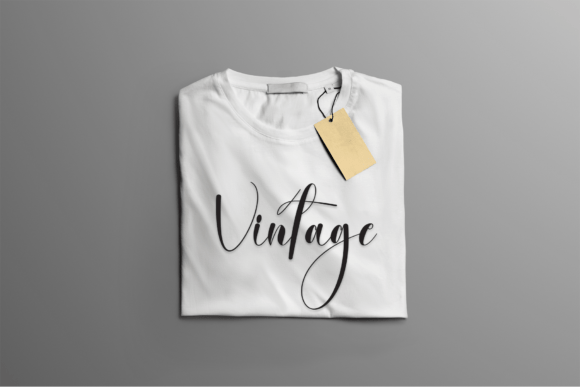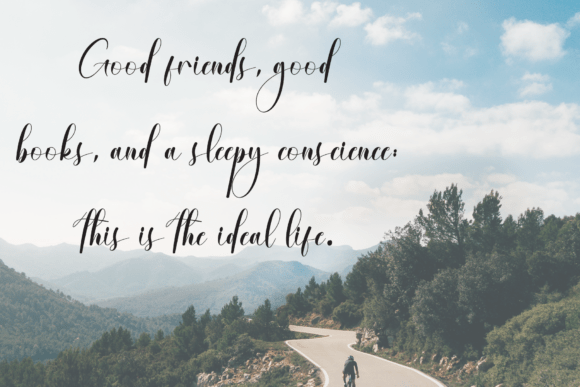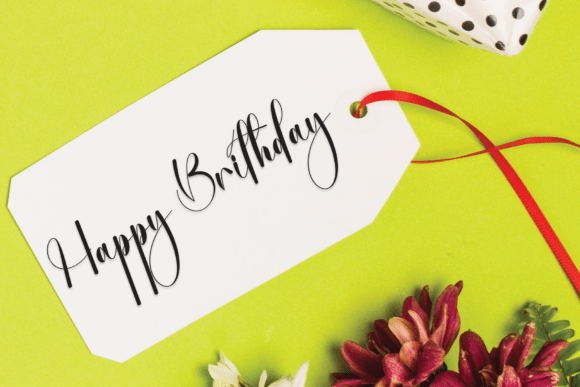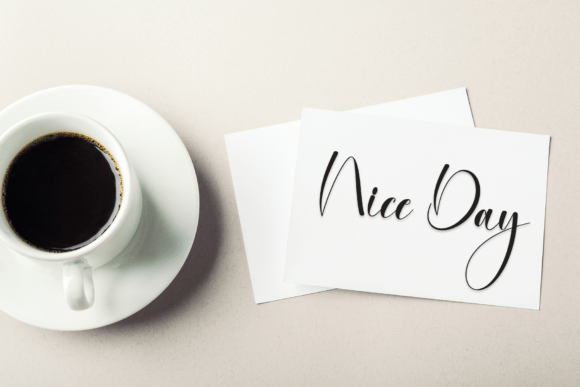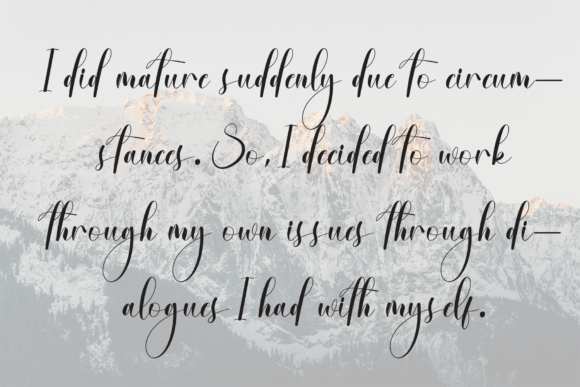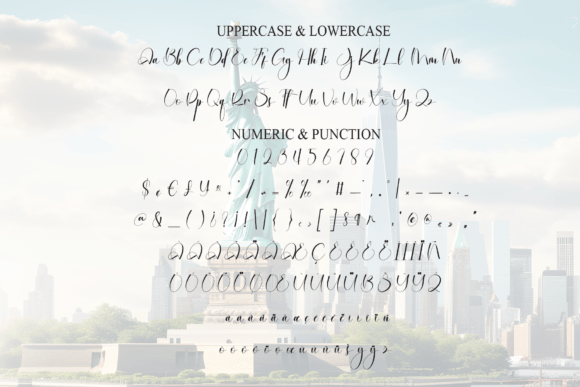
Introducing America Font: The Epitome of Modern Calligraphy and Cursive Elegance
In the realm of typography, few fonts capture the essence of high-end romance and cursive sophistication as effortlessly as America. This stunning modern calligraphy font is a masterclass in elegance, designed with an authentic, poetic soul that elevates any visual project to new heights. With its beautifully fluid script anatomy and high-contrast strokes, America is the perfect choice for designers and crafters seeking to infuse their work with a sense of luxury, refinement, and artisanal beauty.
The Anatomy of America Font
America’s script anatomy is built on high-contrast strokes that shift seamlessly from delicate hairline loops to confident, sweeping downstrokes. This fluidity creates a sense of movement and dynamism, imbuing the font with a sense of life and energy. The high-contrast strokes also add a level of sophistication and elegance, making America perfect for luxury boutique identity branding, custom signature logos, elegant wedding stationery, and editorial magazine headers.
Unparalleled Versatility and Application
One of America’s greatest strengths is its versatility. This extraordinary font can be used in a wide range of applications, from high-end branding and advertising to wedding stationery and editorial design. Whether you’re looking to create a luxurious brand identity, craft a bespoke wedding invitation, or design a sophisticated editorial spread, America provides the perfect solution. Its elegant, refined aesthetic and poetic soul ensure that it will elevate any visual project, transforming digital text into a curated masterpiece.
Luxury Branding and Identity
For luxury boutiques, high-end brands, and businesses seeking to establish a sophisticated identity, America offers a unique opportunity to stand out in a crowded market. Its elegant, refined aesthetic and artisanal beauty make it perfect for creating custom signature logos, brand headers, and marketing materials that exude professionalism and style. By incorporating America into your branding, you can instantly convey a sense of luxury, exclusivity, and high-end quality that will leave a lasting impression on your target audience.
Elegant Wedding Stationery and Editorial Design
America is also an ideal choice for wedding stationery, including invitations, save-the-dates, and thank-you cards. Its romantic, cursive elegance and poetic soul make it perfect for capturing the magic and emotion of a special day. Additionally, America’s refined aesthetic and high-end sophistication make it a great fit for editorial design, including magazine headers, article titles, and author bylines. Whether you’re designing a bespoke wedding stationery suite or a stylish editorial spread, America provides the perfect combination of elegance, refinement, and artistic flair.
- Fluid script anatomy: America’s beautifully fluid script anatomy creates a sense of movement and dynamism, adding energy and life to any visual project.
- High-contrast strokes: The font’s high-contrast strokes shift seamlessly from delicate hairline loops to confident, sweeping downstrokes, adding a level of sophistication and elegance.
- Unparalleled versatility: America can be used in a wide range of applications, from luxury branding and advertising to wedding stationery and editorial design.
- Artisanal beauty: The font’s poetic soul and refined aesthetic make it perfect for creating visual projects that exude professionalism, style, and artisanal beauty.
America Font is a breathtaking modern calligraphy font that embodies the essence of high-end romance and cursive elegance. With its beautifully fluid script anatomy, high-contrast strokes, and unparalleled versatility, America is the perfect choice for designers and crafters seeking to elevate their visual projects to new heights. Whether you’re creating luxury boutique identity branding, custom signature logos, elegant wedding stationery, or editorial magazine headers, America provides the perfect combination of elegance, refinement, and artistic flair. Discover the art of high-end typography with America Font, and transform your digital text into a curated masterpiece.